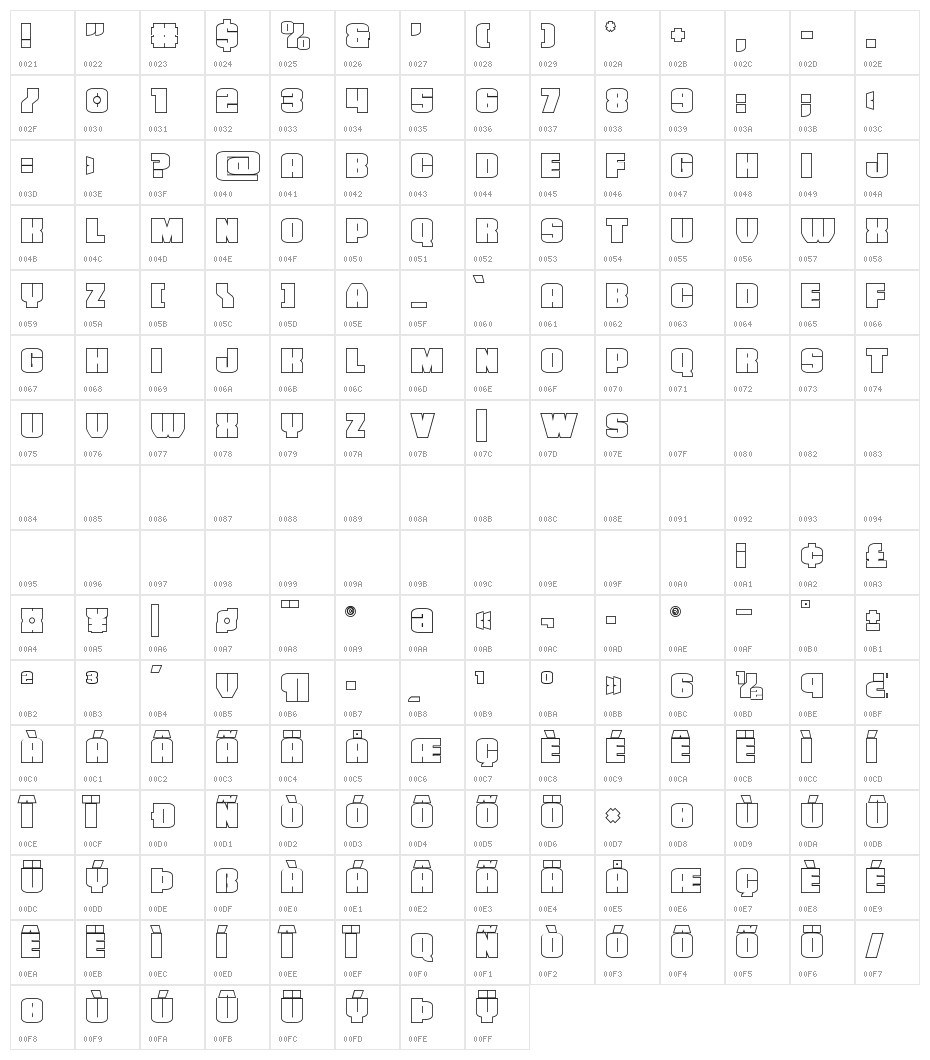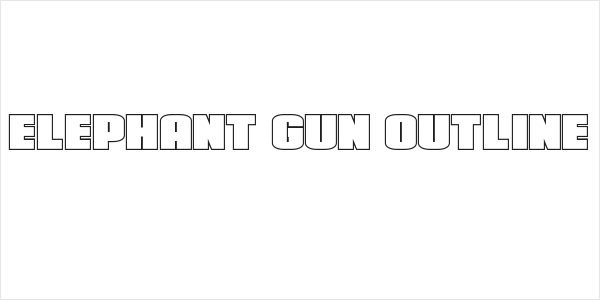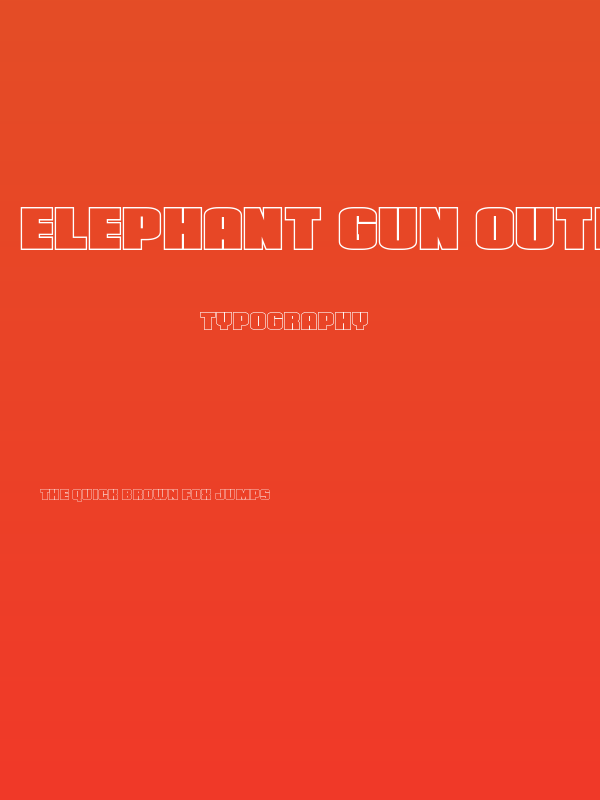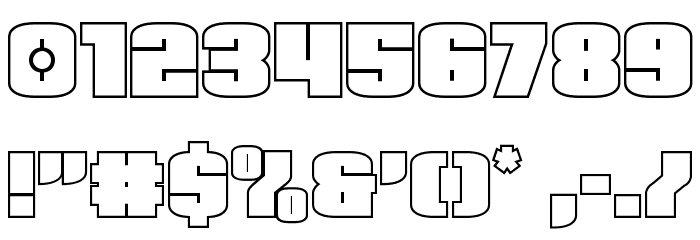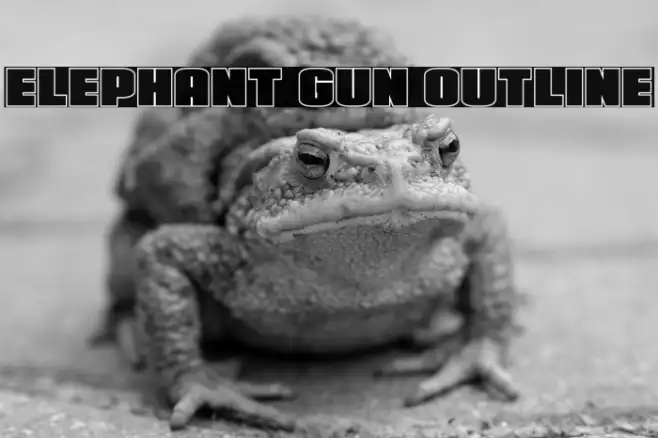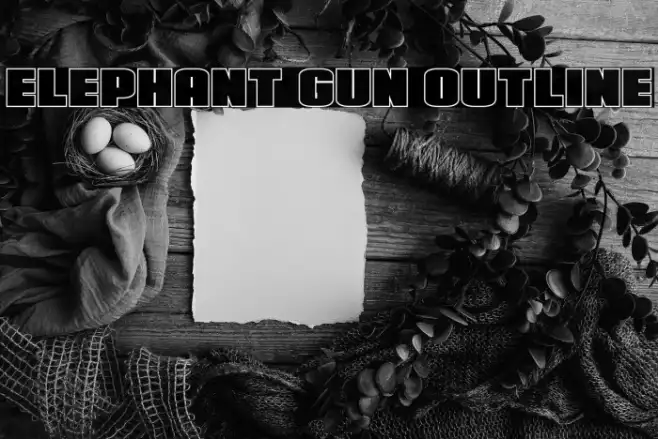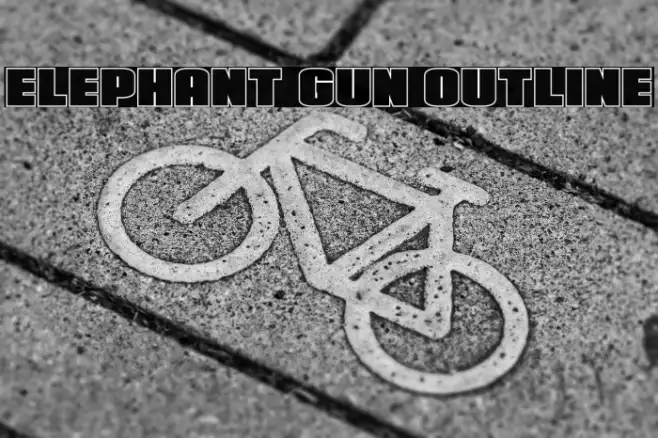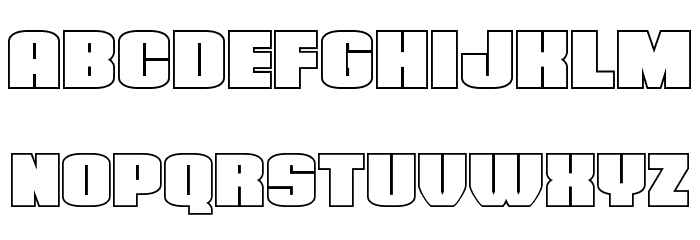
Elephant Gun Outline Font
Elephant Gun Outline Description
This font features a bold, blocky design with a distinct outline style that gives it a strong, impactful presence. The characters are uniformly wide and have a geometric, squared-off appearance, making them highly legible and attention-grabbing. The uppercase and lowercase letters maintain a consistent height, contributing to a cohesive look. The numbers and special characters are designed with the same bold outline, ensuring uniformity across all glyphs. This font's style is reminiscent of retro or vintage signage, yet it maintains a modern edge due to its clean lines and structured form.
| Proposed Projects | Ideal for posters, headlines, logos, and any design requiring a strong, eye-catching typeface. |